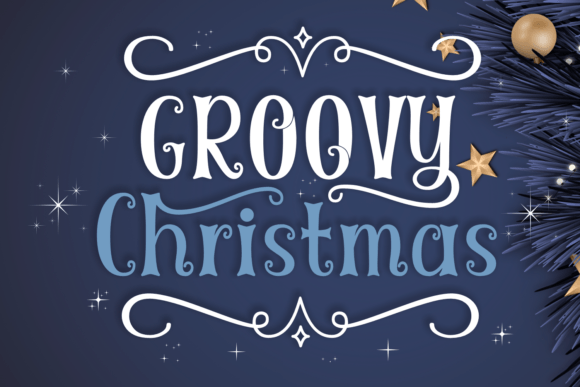
Behold, the Groovy Christmas Font, a true masterpiece in the realm of display fonts. As spirited as a winter's carol, it dances across your screens, bringing an infectious rhythm to your designs.
Unleash your creativity and immerse yourself in a world of festive wonder with this extraordinary font. Designed to captivate and enchant, it's the perfect choice for adding a touch of holiday magic to your projects. From enchanting music posters that transport you to a winter wonderland to heartwarming holiday cards that spread cheer, the possibilities are infinite.
More than just a font, Groovy Christmas is an expression of joy and celebration. Its playful characters, reminiscent of sugarplums and candy canes, add a touch of whimsy to any design. The rhythmic flow of its letters resembles the joyous melodies of the season, evoking a sense of wonder and merriment.
Let Groovy Christmas be your creative companion, inspiring you to craft designs that dance, sing, and spread holiday cheer. Whether you're creating festive flyers, enchanting invitations, or personalized gift tags, this font is sure to make your projects shine.
So, step into the festive spirit, embrace the groovy beats of Groovy Christmas, and let your creativity soar to new heights. Experience the magic of this remarkable font and make your winter holiday designs truly unforgettable.